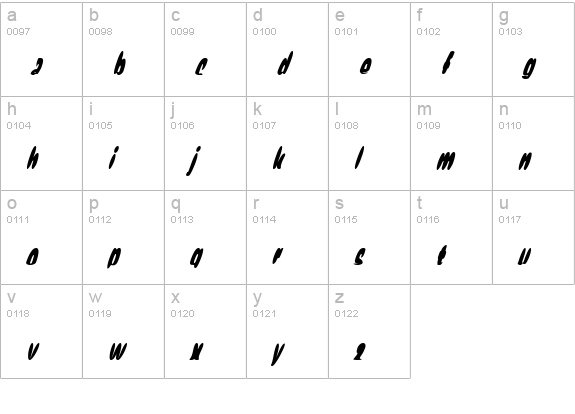
Eggit AOE Italic Font Details
Eggit AOE Italic is a distinctive, italic variant in the Eggit typeface family \xE2\x80\x94 well suited to design and typography projects.
Eggit AOE Italic font is a stunning and elegant typeface that adds a touch of sophistication to any design project. With its sleek and slanted letterforms, this font exudes a sense of modernity and style. The Eggit AOE Italic font is perfect for a wide range of applications, from branding and logo design to website headers and advertising materials. Its unique italicized style adds a sense of movement and energy to your text, making it stand out and capture attention. One of the best things about Eggit AOE Italic font is that it is free! Yes, you read that right. This font is freely available to download at FontsMarket.com. Now you can enhance your designs without having to worry about breaking the bank. Whether you're a professional designer or a hobbyist, Eggit AOE Italic font is a valuable addition to your font library. Its versatility and eye-catching aesthetics make it a go-to choice for creating visually stunning and impactful designs. So why wait? Download Eggit AOE Italic font today and elevate your design projects to new heights. Enjoy the freedom of creativity with this incredible font, available for free at FontsMarket.com.